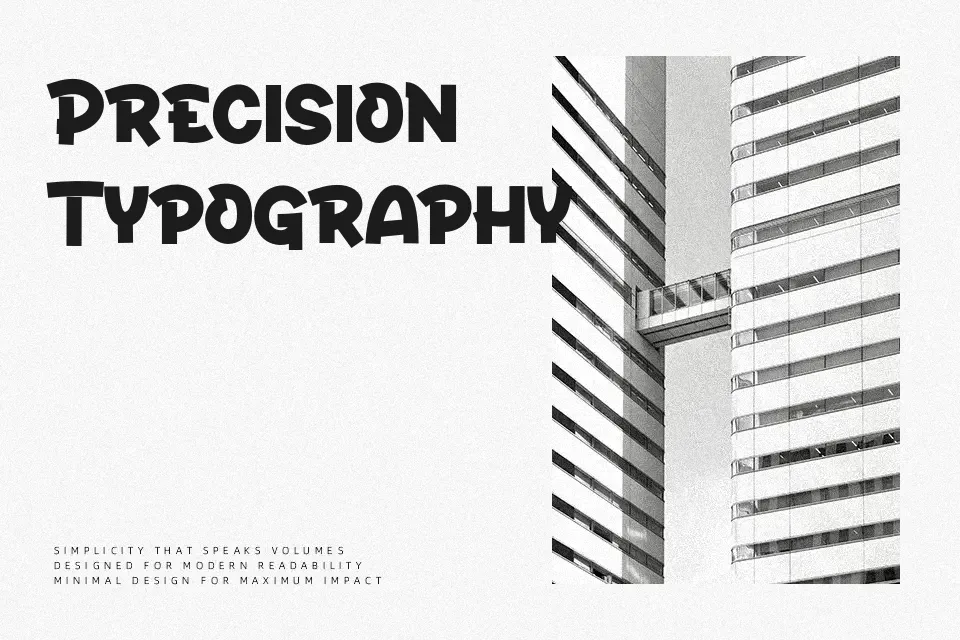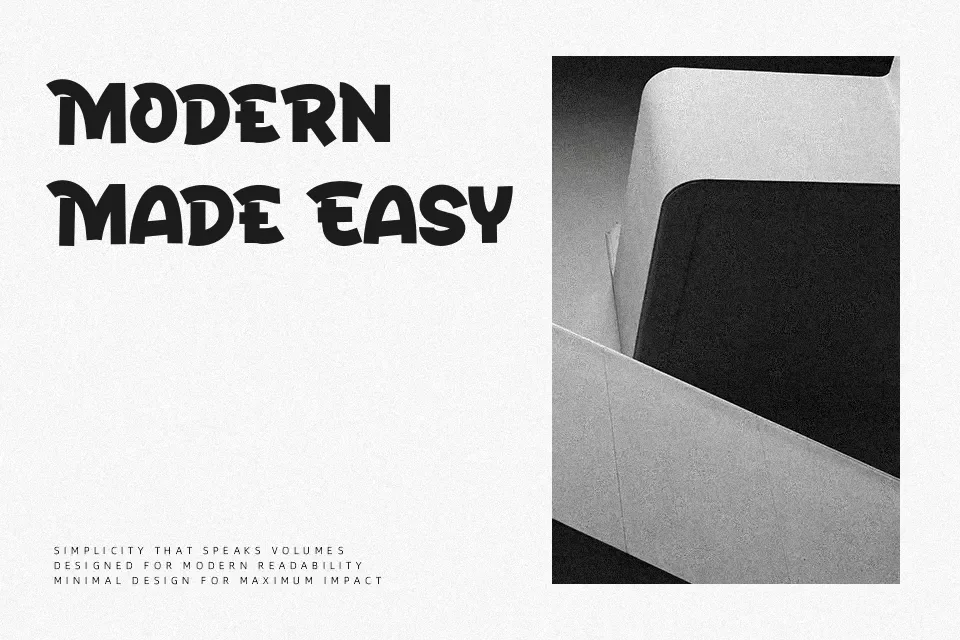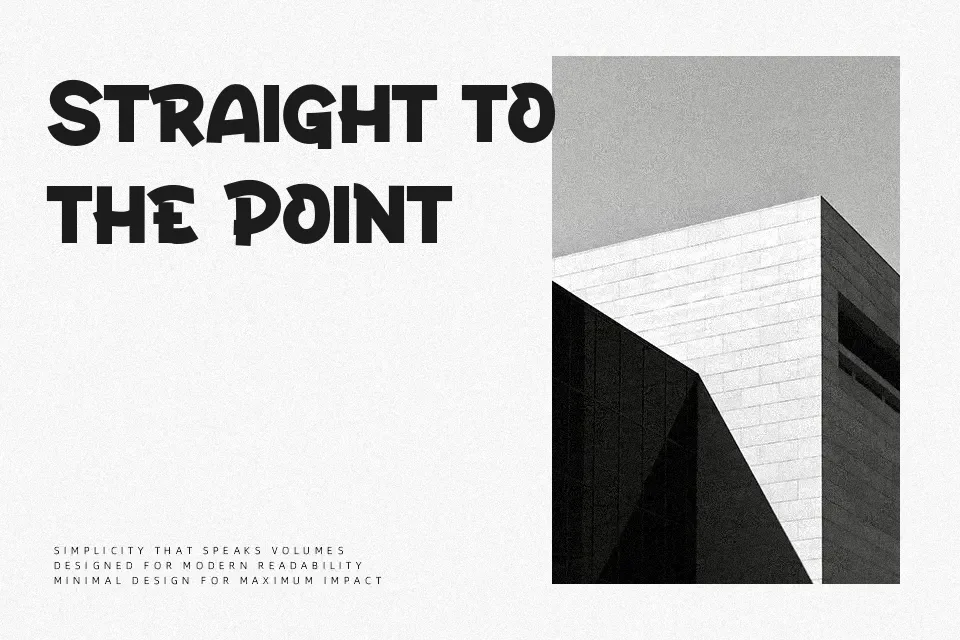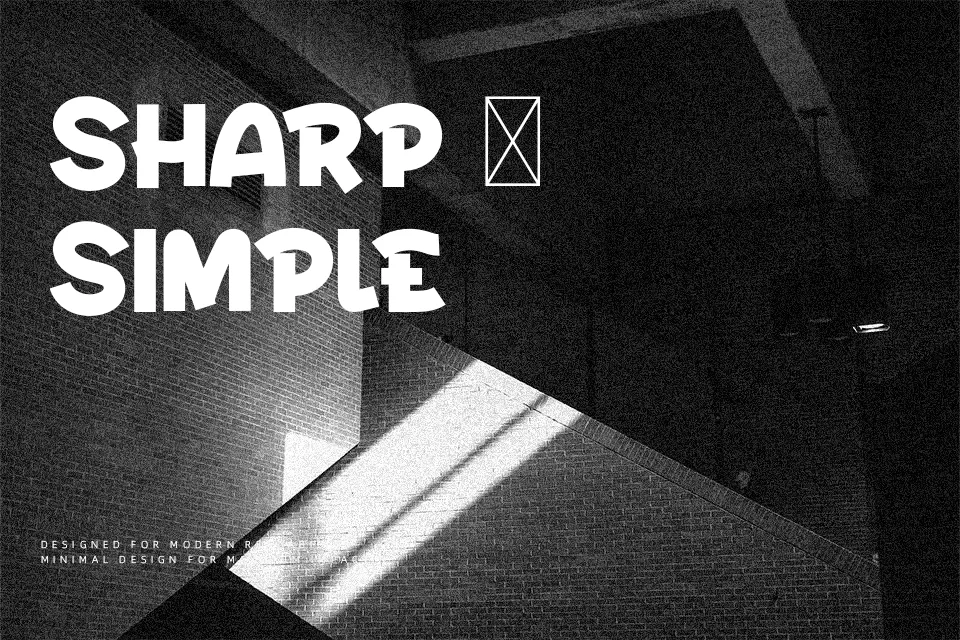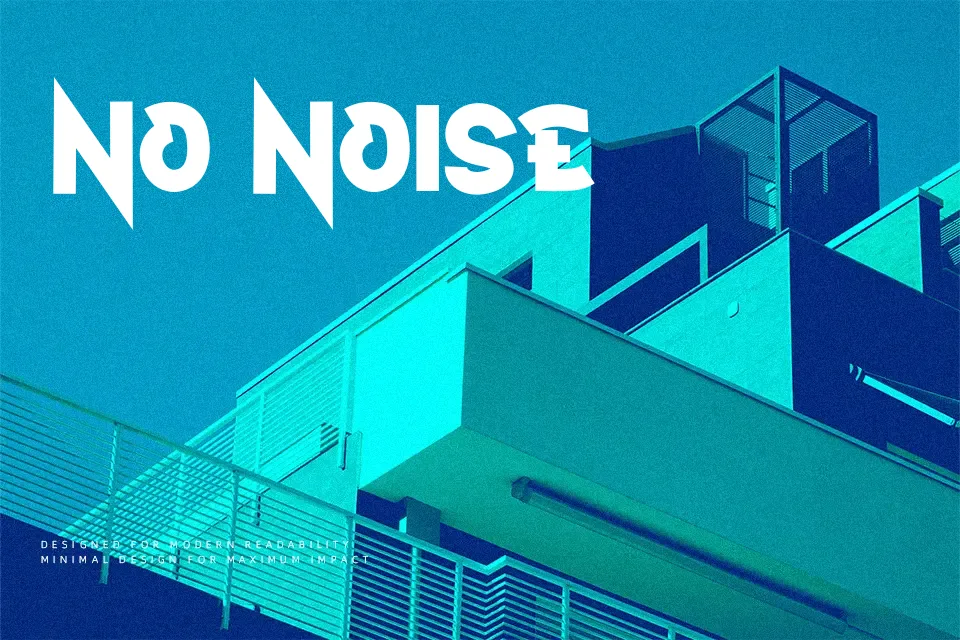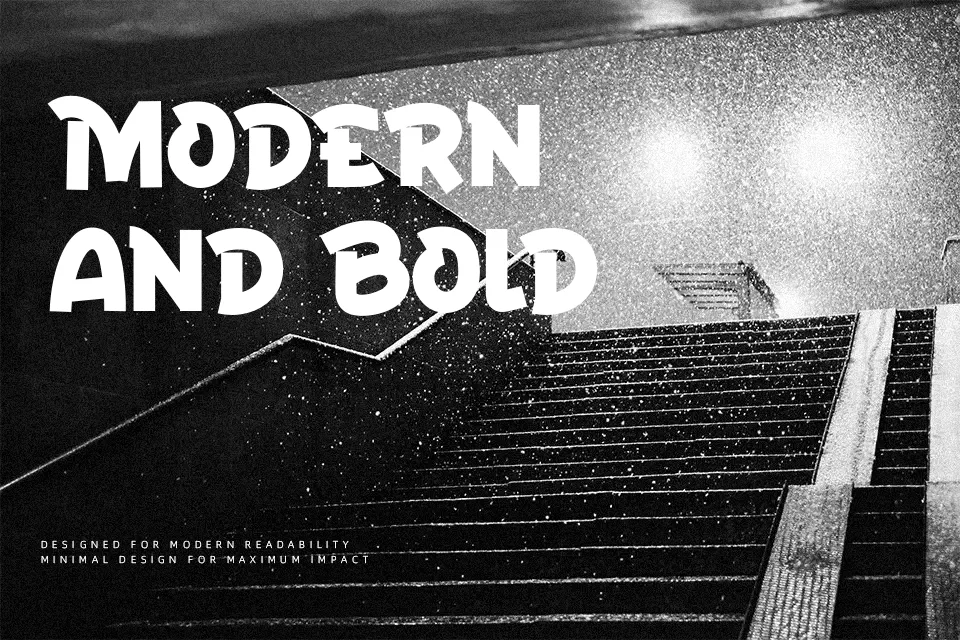
Rolam Font
When designing for children’s apparel or vibrant toy packaging, Rolam Font delivers a strong presence through its bold, heavy letterforms. This thick sans-serif display typeface features solid strokes and smooth, rounded characteristics that give it a playful, cartoon-like appearance. The generous character width and balanced spacing help maintain clarity in larger headlines, allowing the weighty structures to stand out without feeling overly dense. While its bold presence is perfect for eye-catching titles and casual branding, these massive strokes become less effective at smaller sizes, significantly reducing continuous reading comfort. It performs best as a focal point where its flexible, energetic curves can be fully appreciated.
Children’s product packaging, bright festival posters, casual apparel graphics, esports team logos
Long paragraph text, corporate reports, small interface labels, spreadsheet data